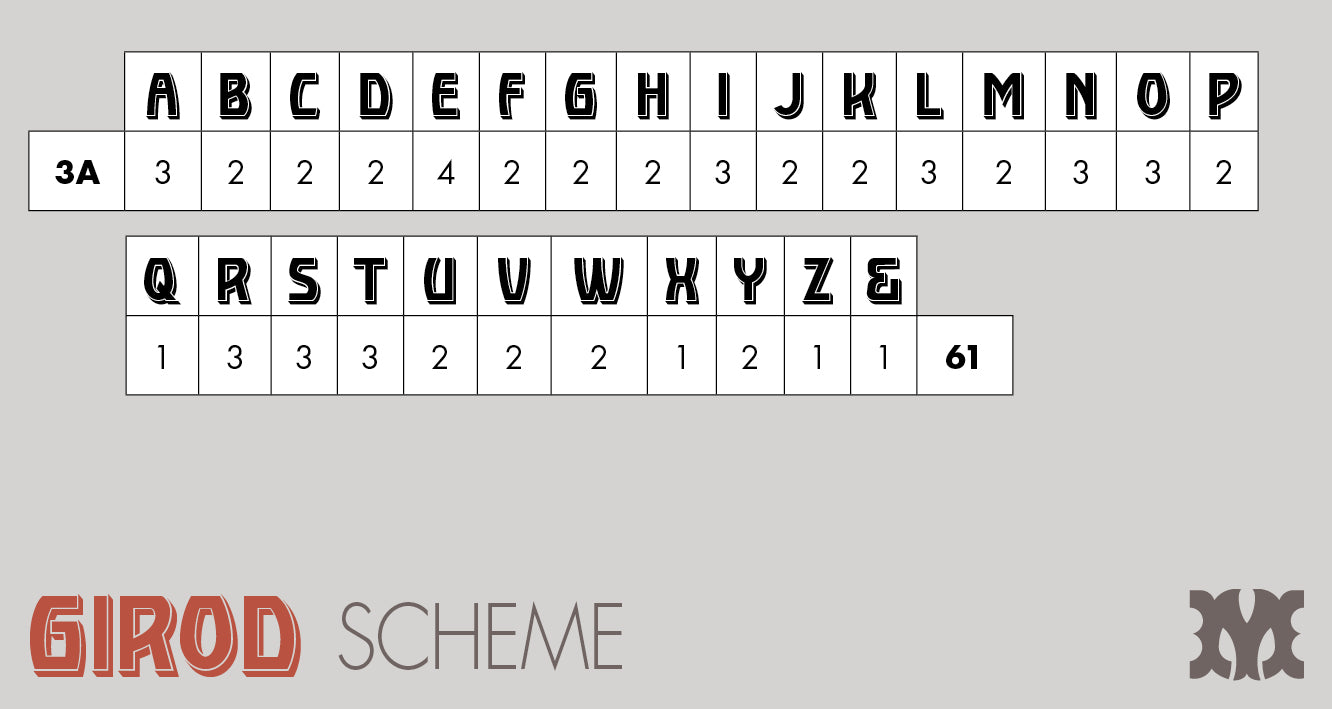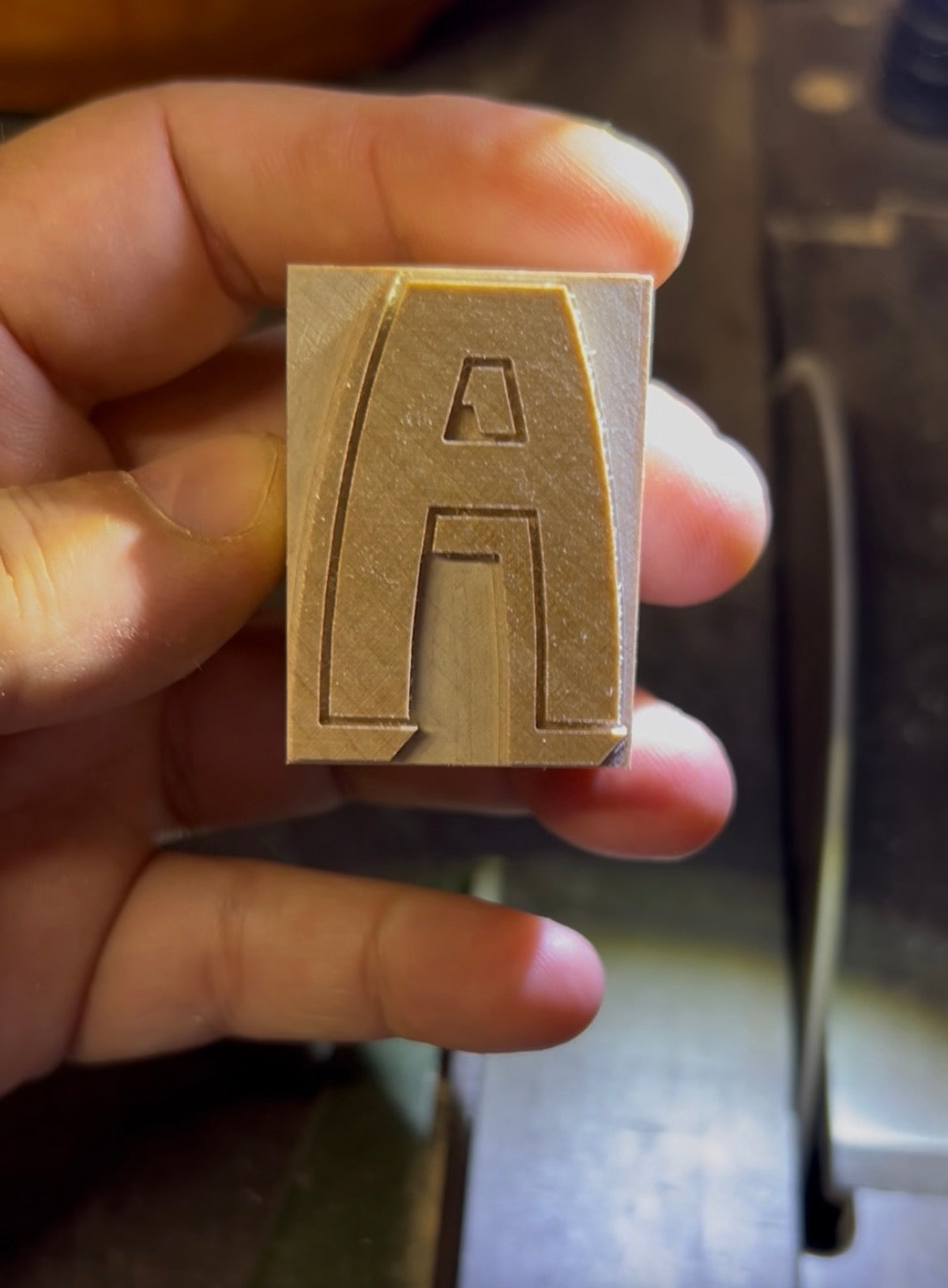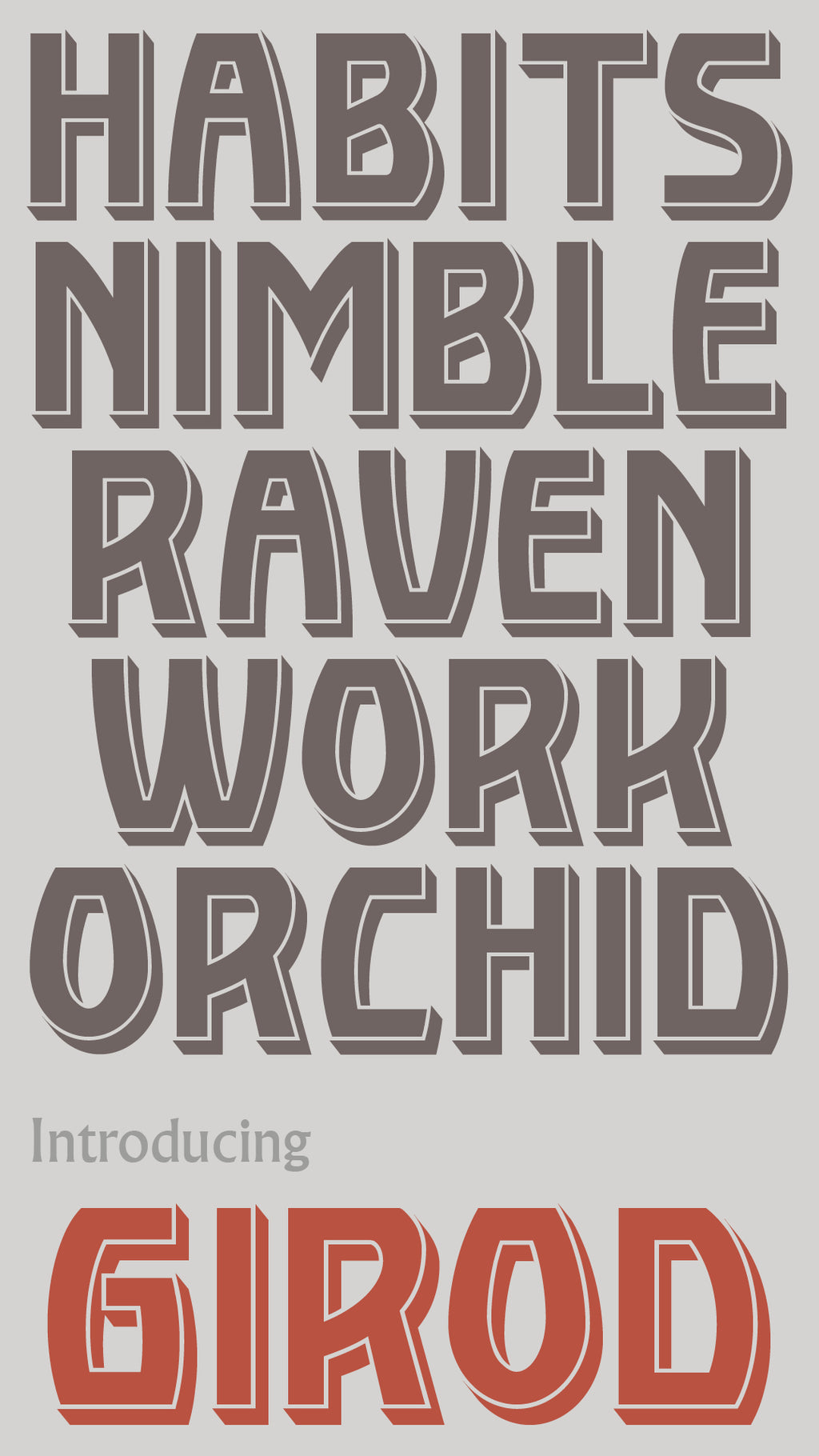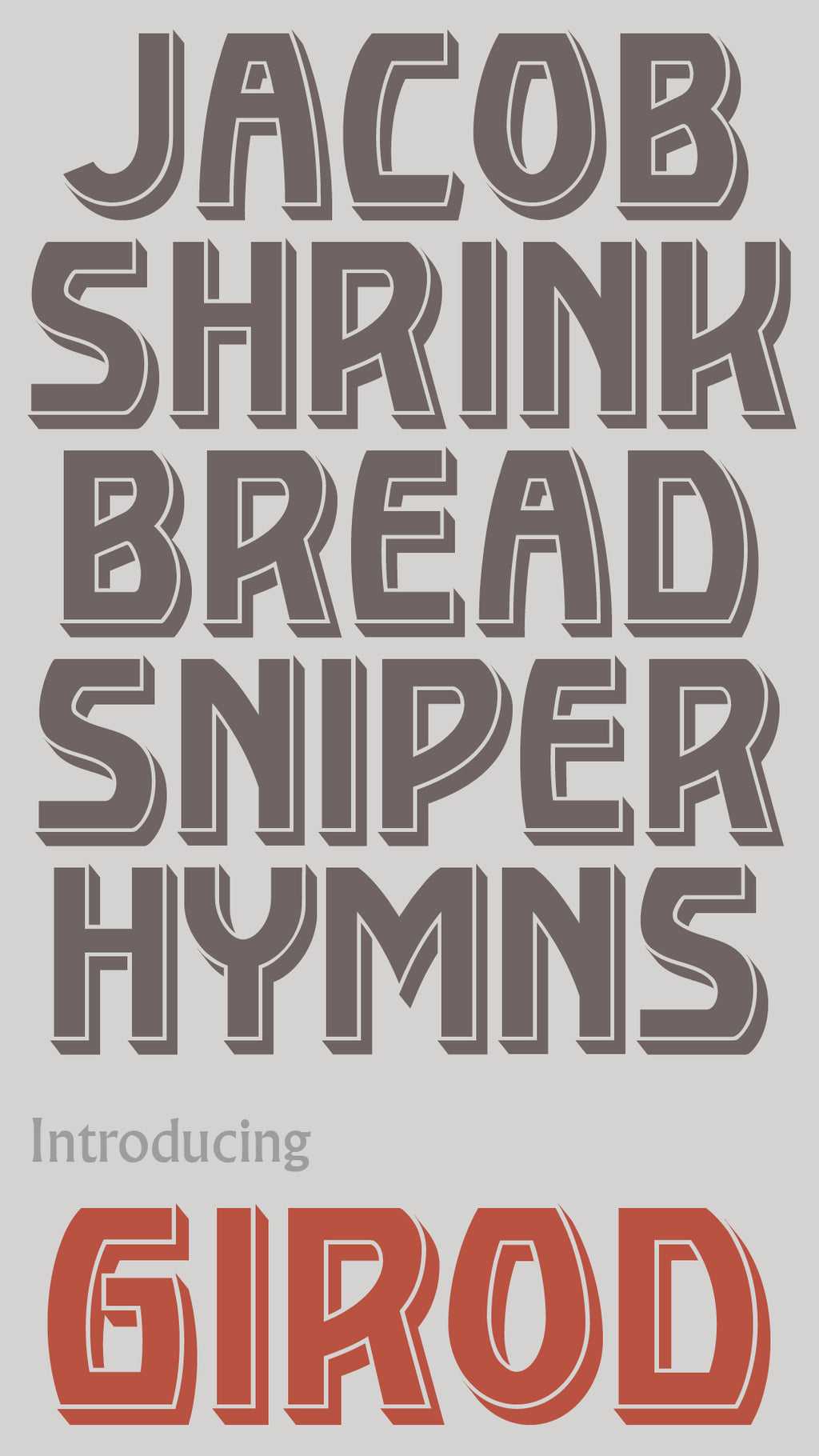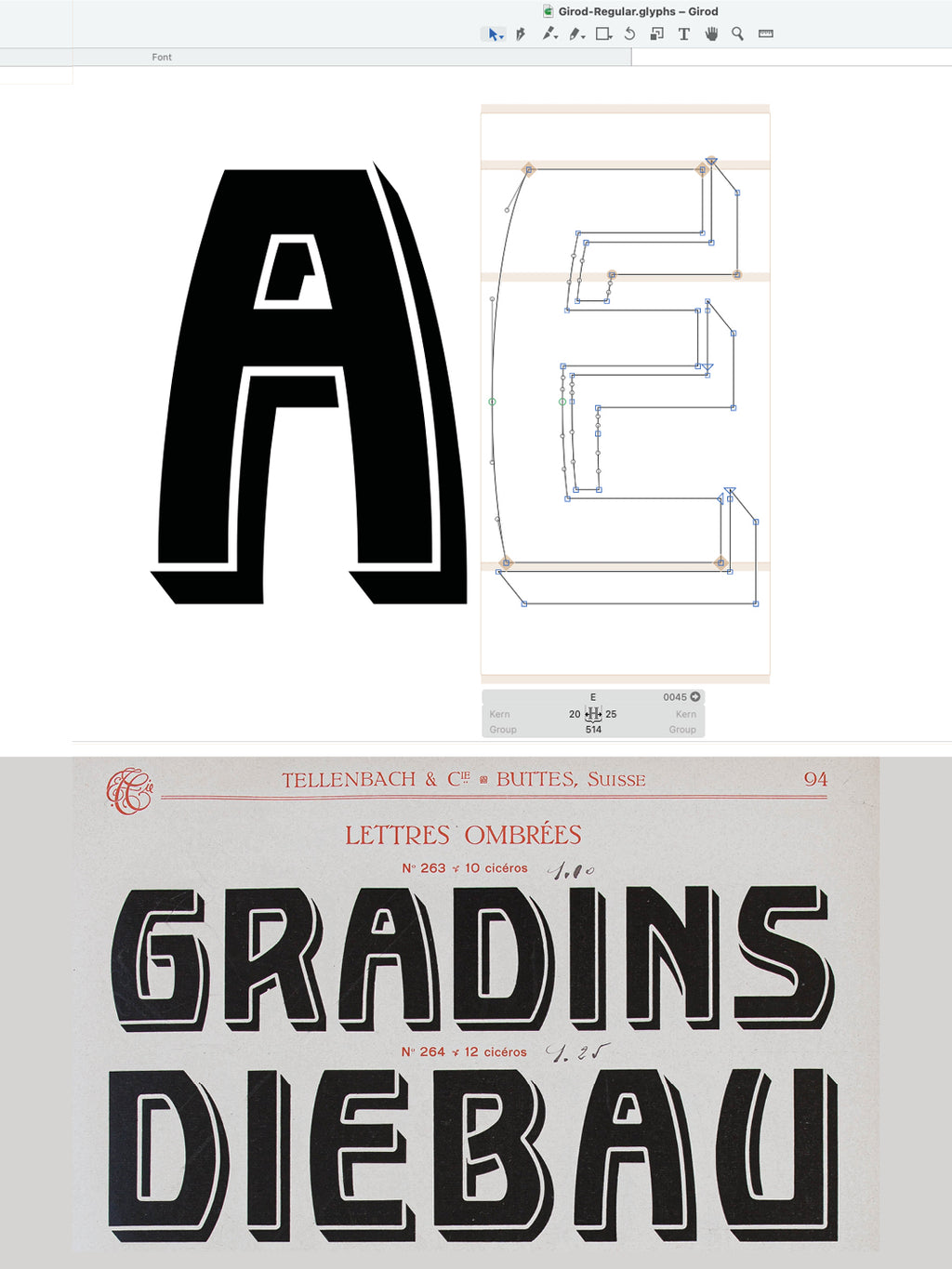
'Girod' letterpress woodtype typeface
Introducing 'Girod' - a typeface based on a 1911 design by Tellenbach & Cie., a wood type manufacturer from Buttes, Switzerland. Part of my 'Revival' series.
10 line (42.3mm) size cut from end grain English hardwood using a combination of modern CNC technology and traditional hand woodworking tools (including an original printers saw), made to English type-high (0.918in or 23.3mm) within plus or minus 0.1mm tolerance, sealed with shellac and hand finished with a traditional polished printing surface.
Each block varies in width however average size is 38mm x 23.3mm x 42.3 mm.